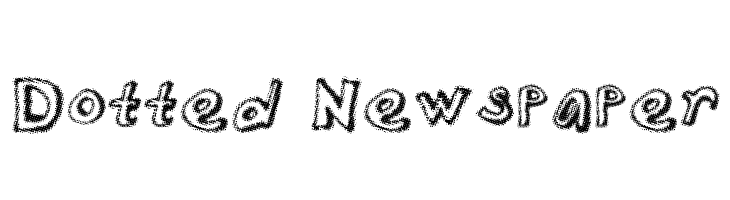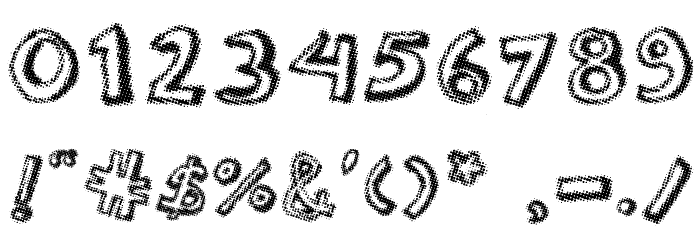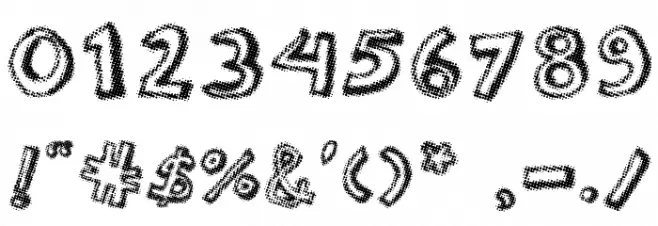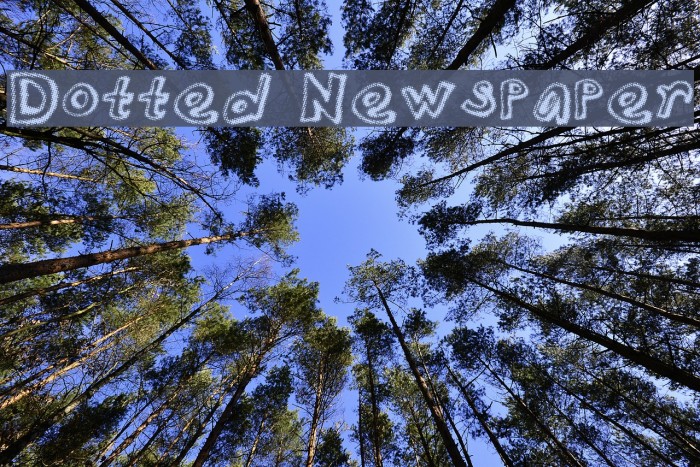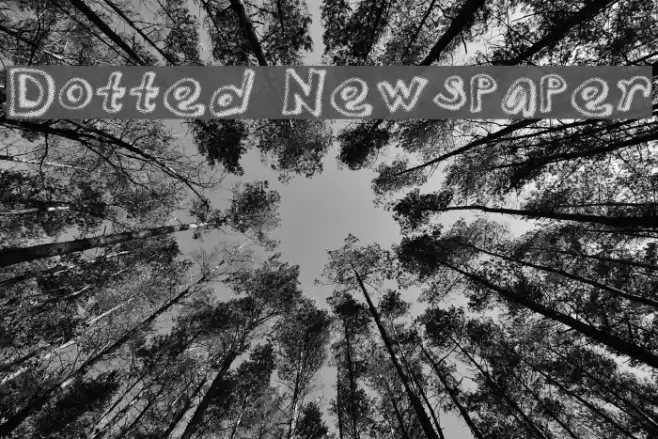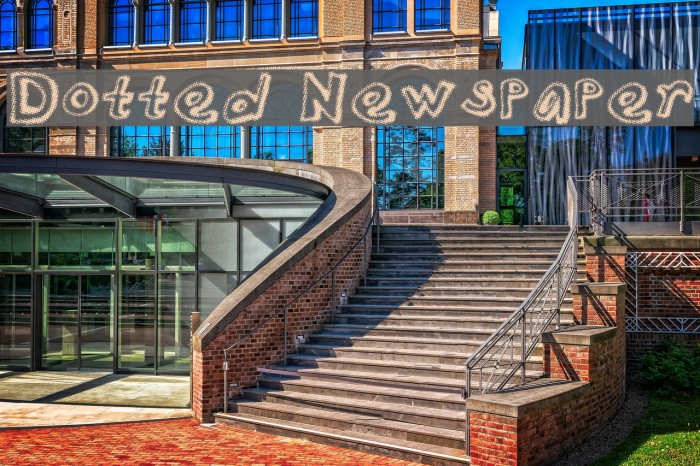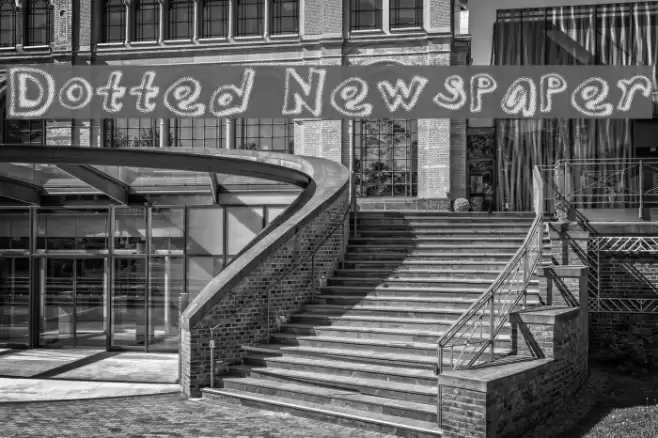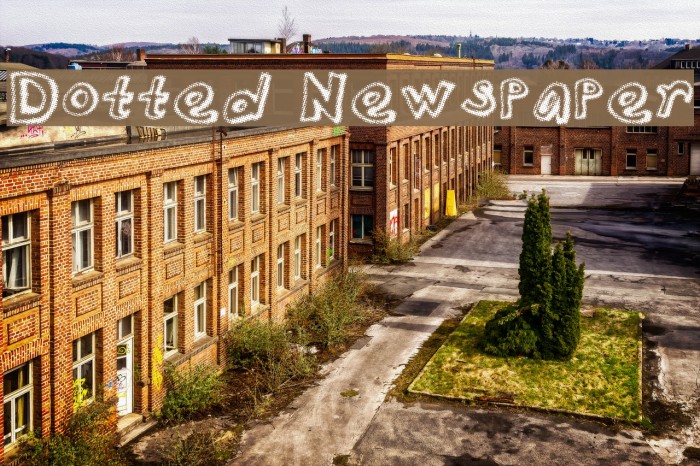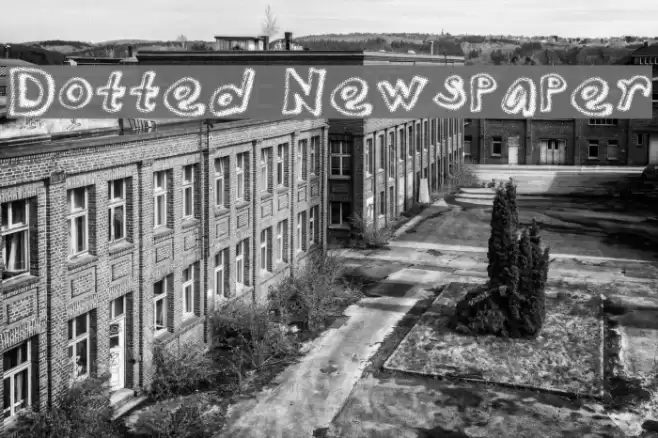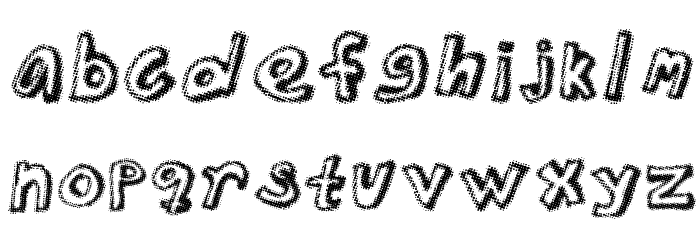
Dotted Newspaper Font
Dotted Newspaper Description
This playful and unique font features a dotted texture reminiscent of vintage newspaper prints. Each character is outlined with a series of small dots, giving it a textured and tactile appearance. The letters are bold and slightly irregular, adding a whimsical and handcrafted feel. The uppercase and lowercase letters maintain a consistent style, with rounded edges and a casual, friendly demeanor. Numbers and special characters are equally stylized, ensuring a cohesive look across all text elements. This font's distinct dotted pattern makes it stand out, ideal for projects that require a touch of nostalgia or a playful twist.
| Overall Style | Vintage, Playful |
| Proposed Projects | Ideal for children's books, playful branding, vintage-themed posters, and creative invitations. |